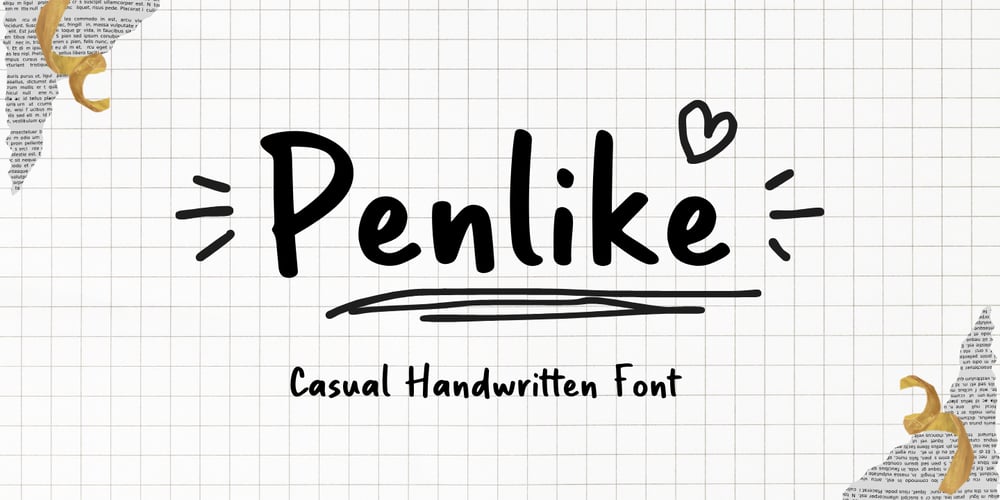
Penlike
Penlike font
Penlike Font Family was designed by Muhamad Yusron Billah and published by Sronstudio. Penlike contains 1 styles and family package options. Penlike is a casual handwritten font with a natural, friendly feel, perfect for adding a personal touch to your designs. Its smooth and easy-going style is ideal for invitations, social media graphics, and branding that needs a warm, approachable vibe. Bring your projects to life with the charm of Penlike.Included:- Upper & Lowercase- Numeral & Punctuation- PUA Encoded- Multilingual support- Simple Installation- Work both on Mac and WindowsThank you very much 🙂